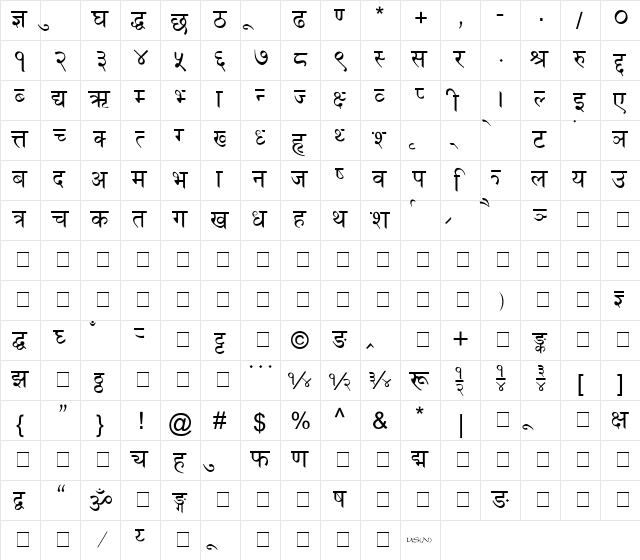
Mercantile Normal
Design Context for Mercantile Typeface
Mercantile is a composed and adaptable typeface that performs quietly and consistently across a wide range of design contexts.